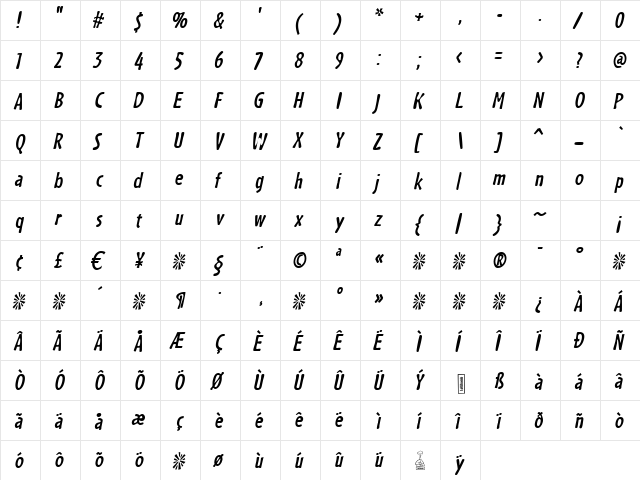
Cafecoco BoldItalic
Design Context for Cafecoco Typeface
Cafecoco is a composed and adaptable typeface that performs quietly and consistently across a wide range of design contexts. The slanted form adds forward momentum and visual energy. The heavy weight commands attention and anchors typographic hierarchies.
Pro Tip: Try Cafecoco for annotation and caption copy alongside an upright companion — the contrast in angle creates a dynamic but ordered typographic system.